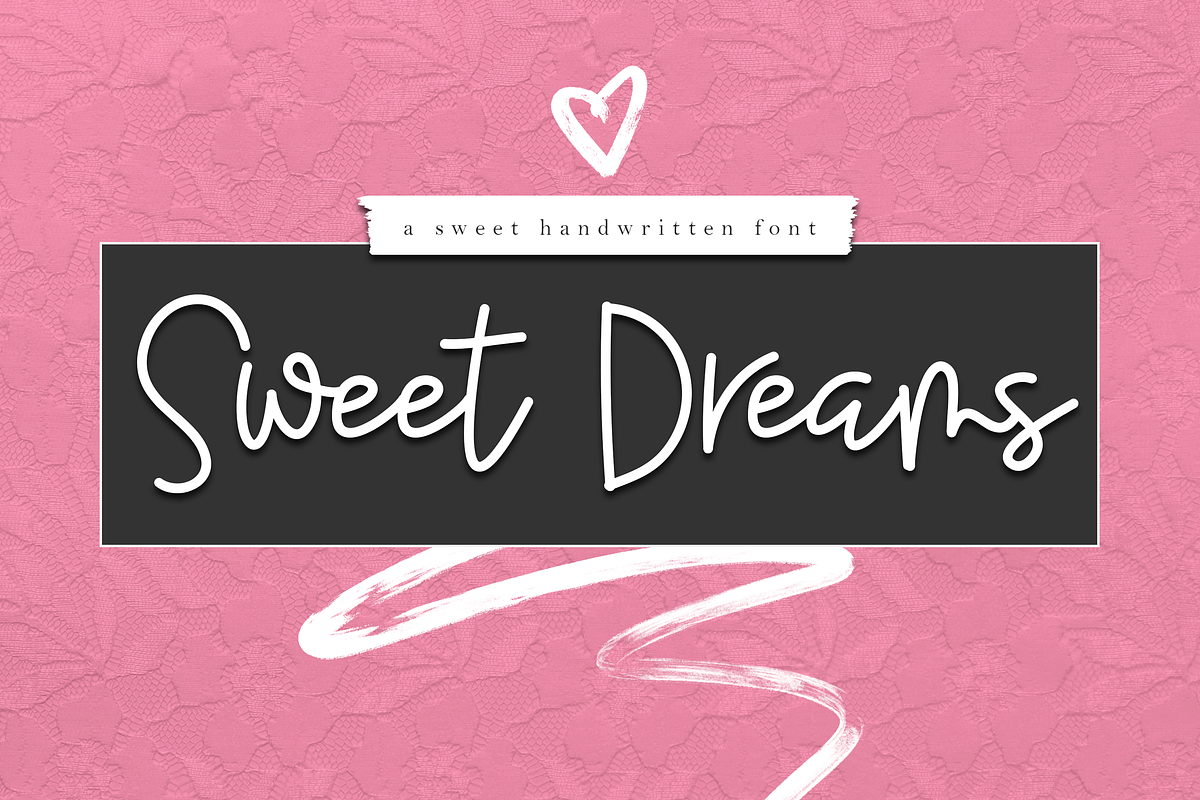
Sweet Dreams - Script Font Free Download
Sweet Dreams – Script Font Free Download
Sweet Dreams – Script Font Free Download is a soft, flowing handwritten typeface that captures a dreamy, romantic vibe with every curve. Perfect for wedding invitations, baby shower cards, branding, social media graphics, and feminine packaging, this font adds a graceful and personal touch to your designs.
Its elegant script style features smooth strokes and charming swashes, making it ideal for both headlines and decorative text. Whether you're crafting sweet quotes, product labels, or heartfelt messages, Sweet Dreams – Script Font Free Download brings warmth and sophistication to any layout.
Create beautiful, heartfelt designs with Sweet Dreams – Script Font Free Download, and let your typography speak with softness, charm, and timeless elegance.